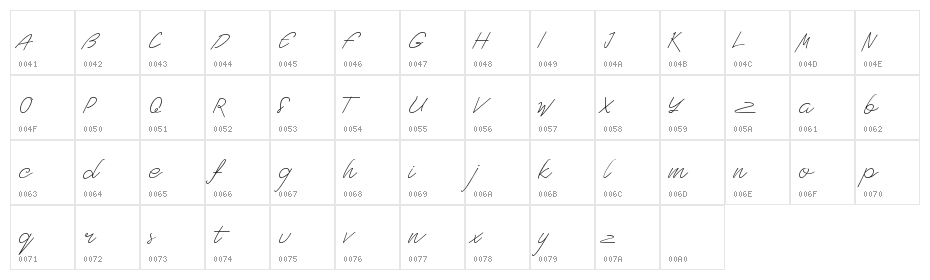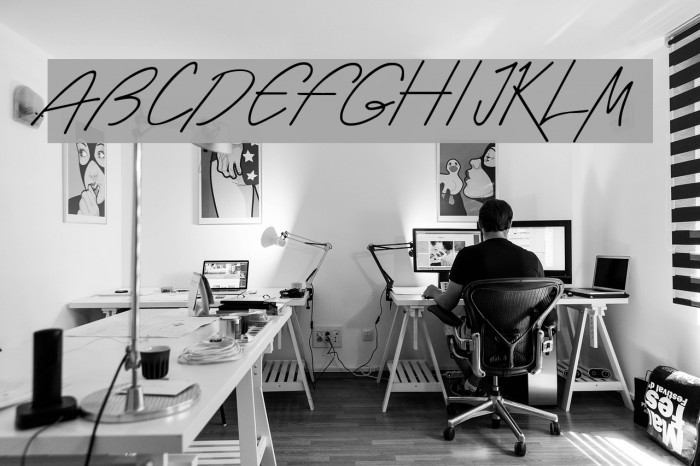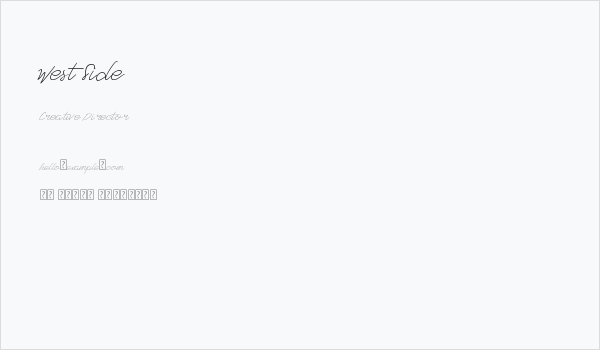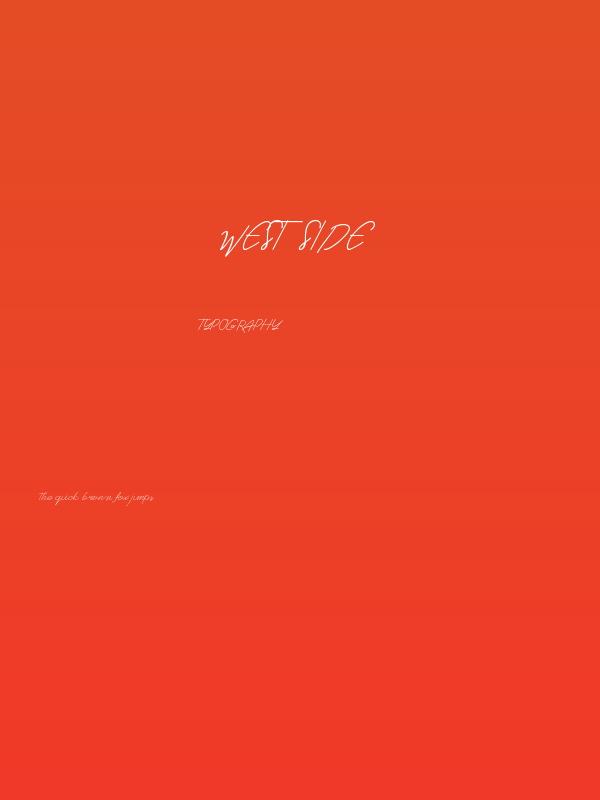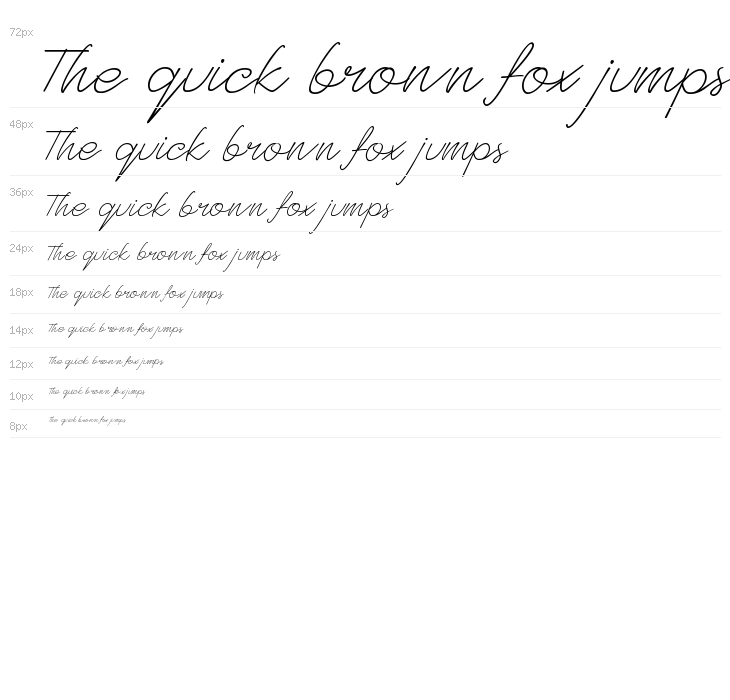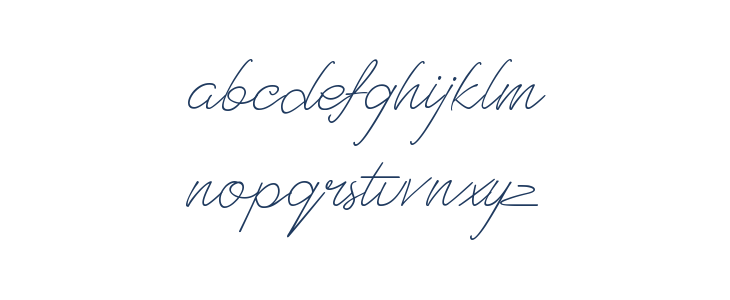
West Side Font
West Side Description
This font features a smooth, flowing script style that mimics elegant handwriting. The characters are connected, creating a seamless and continuous look. The uppercase letters are slightly larger and more pronounced, while the lowercase letters maintain a consistent flow. The font's thin strokes and slight slant give it a sophisticated and graceful appearance, making it ideal for formal invitations, elegant branding, or any project that requires a touch of class. The spacing between characters is balanced, ensuring readability while maintaining its stylish flair.
Nadhira Felani
| Use Case | Headlines, Invitations, Branding |
| Proposed Projects | Ideal for wedding invitations, elegant branding, personal signatures, and decorative headings. |